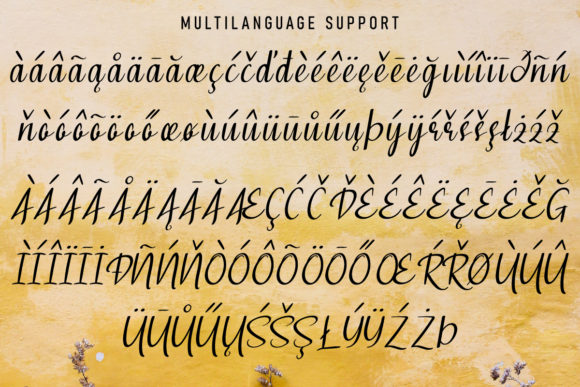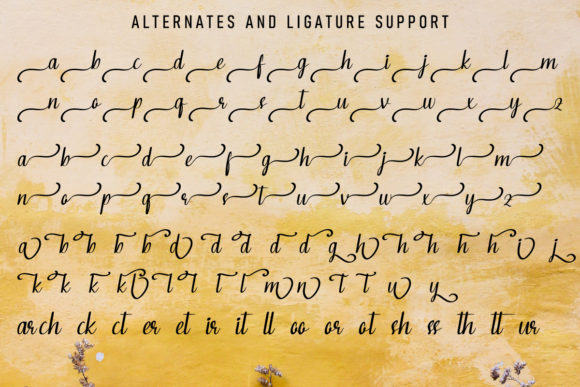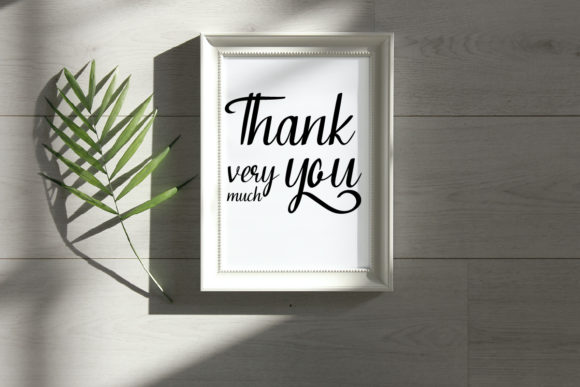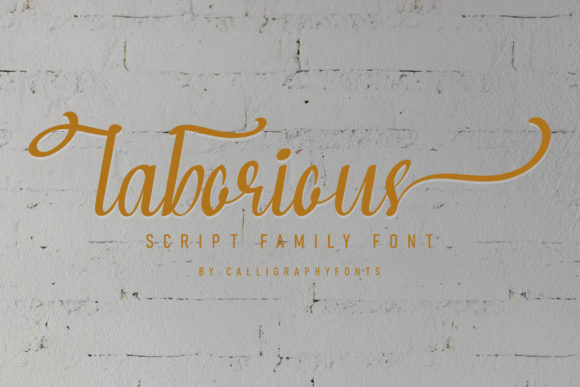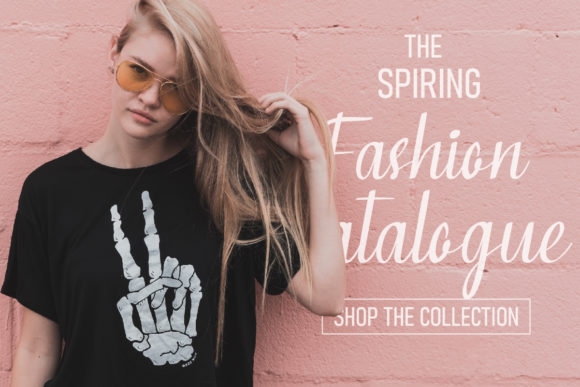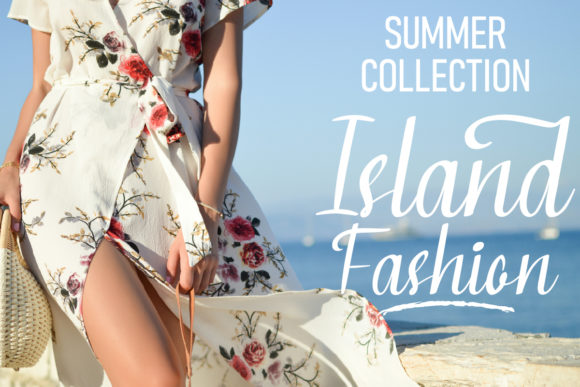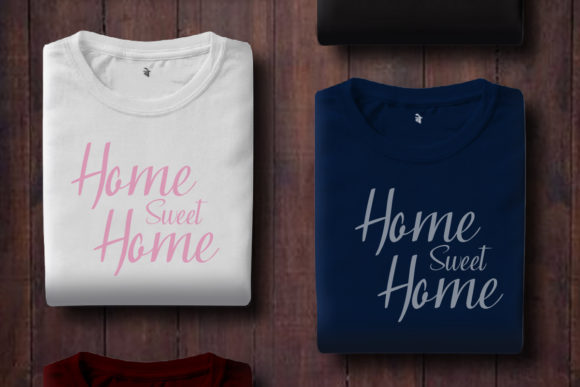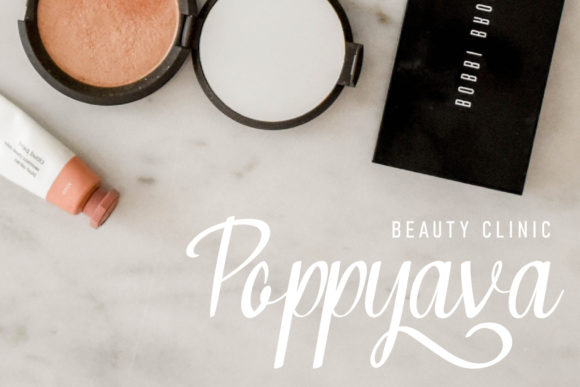
Laborious Font
About Laborious Font
Laborious is an elegant and delicate handwritten font. It looks stunning on wedding invitations, thank you cards, quotes, greeting cards, logos, business cards and every other design which needs a handwritten touch.